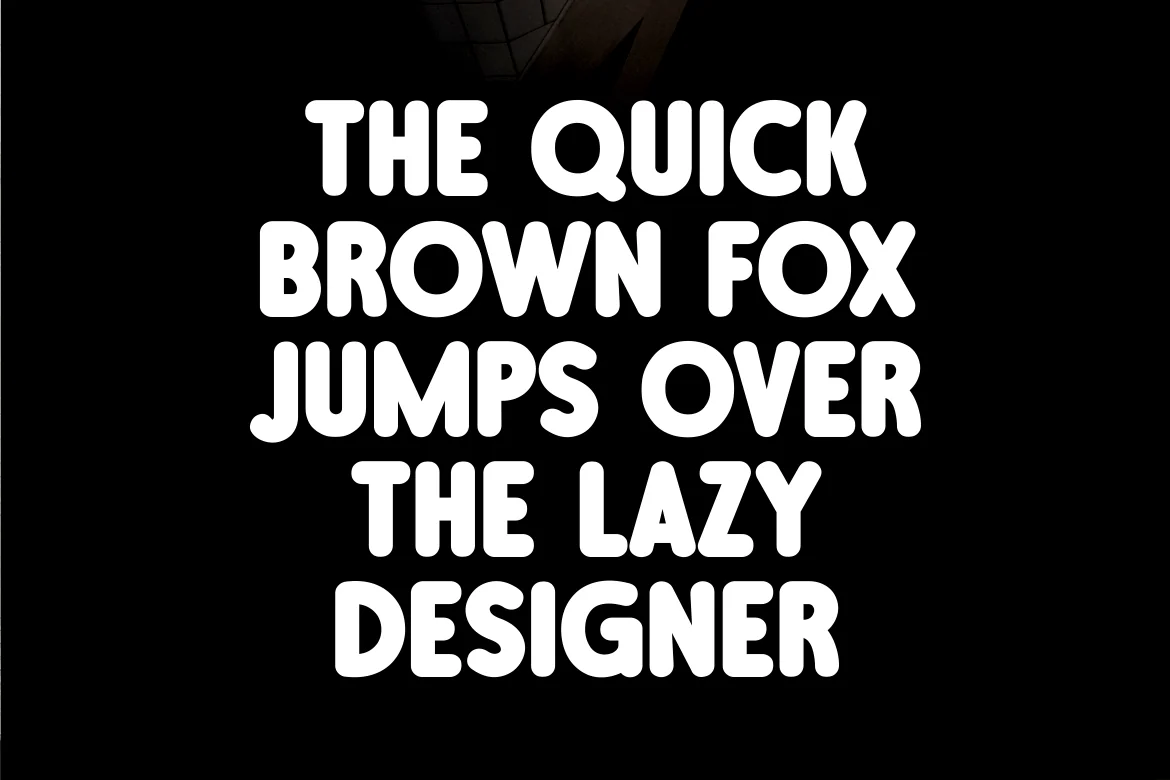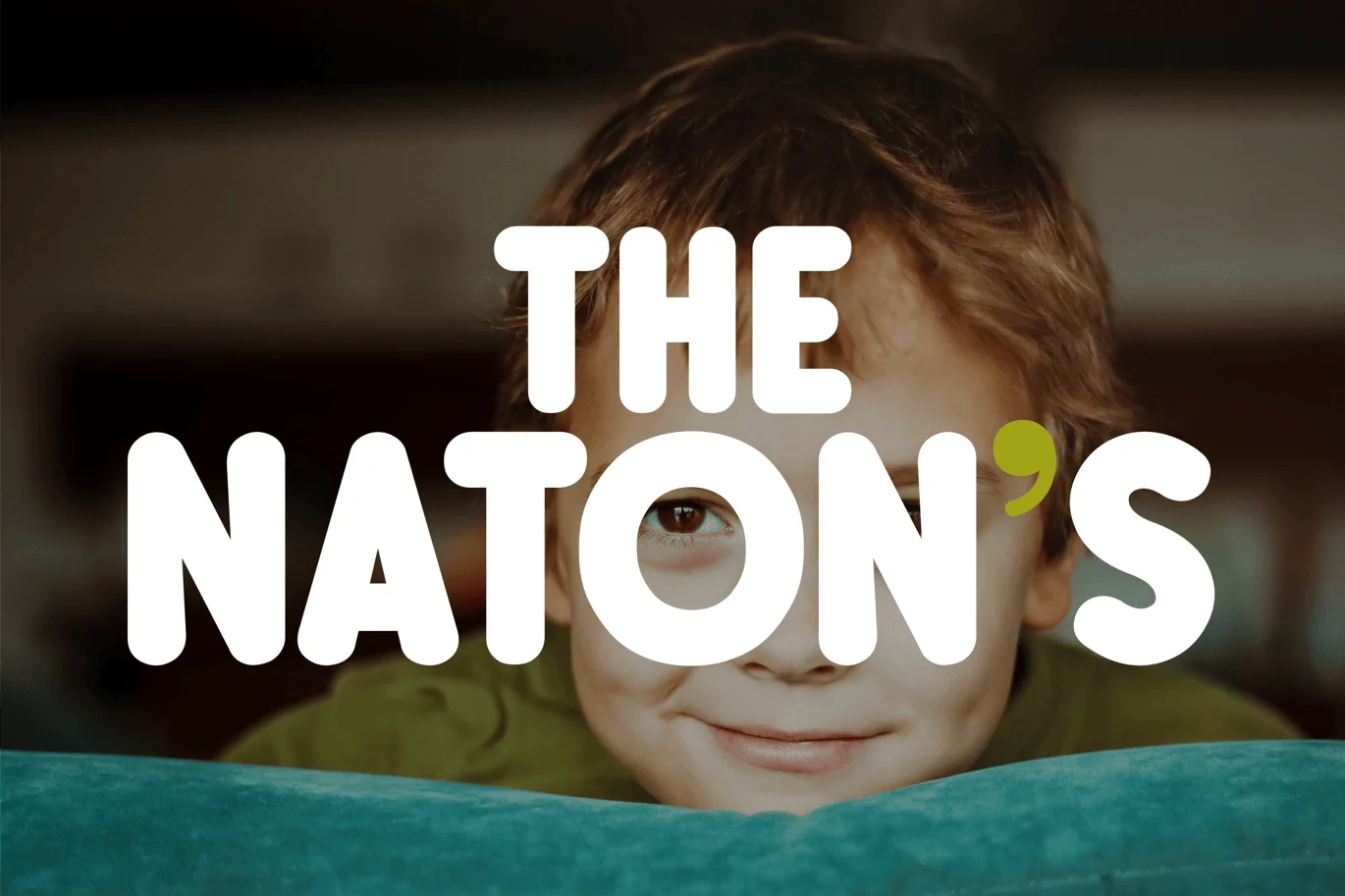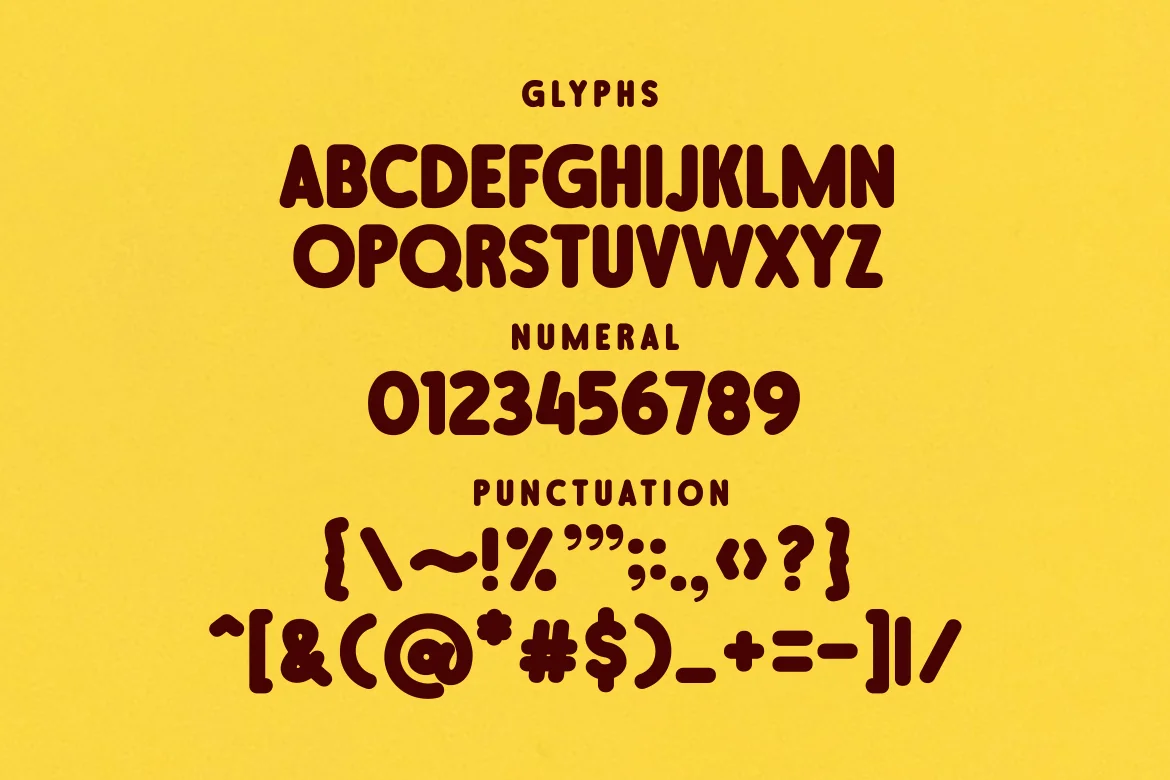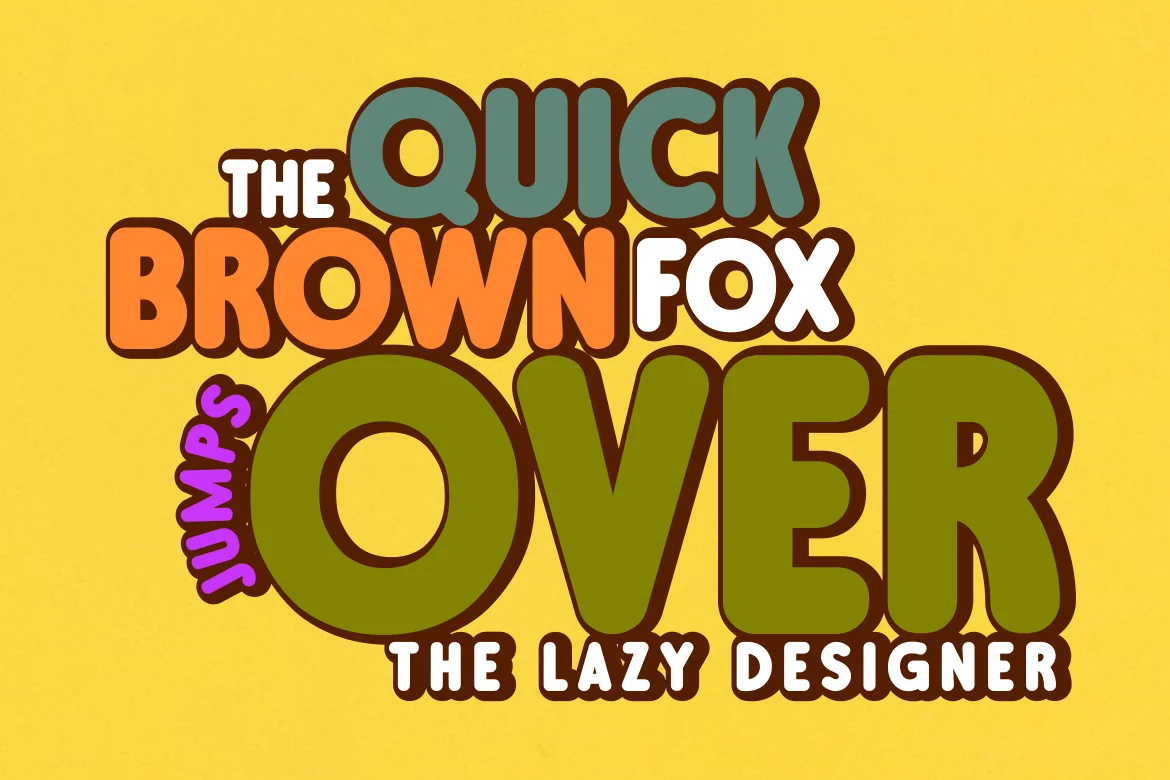
The Naton’s Font
Experience the enchanting allure of Naton’s is font. Offering a unique and playful charm, this font enhances the appeal of children’s products, transforming them into magical worlds of wonder. With its retro tint and comic series feel, making it a prized tool for every designer’s arsenal. Each letter tells a story, charged with vibrant energy and vintage touch. The Naton’s is font puts excitement, joy, and a dash of nostalgia at your fingertips.